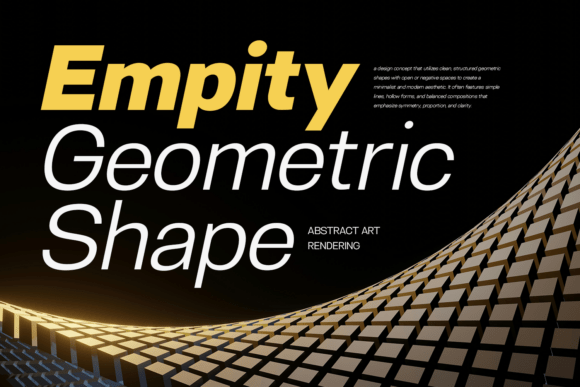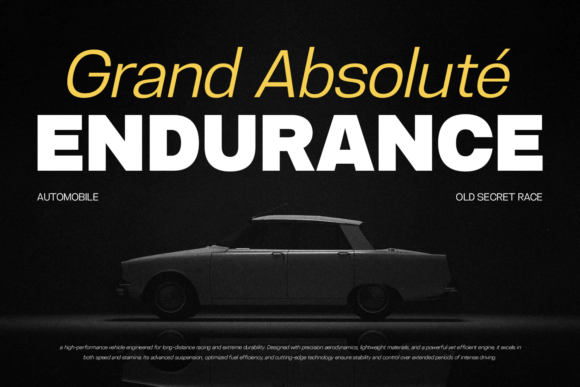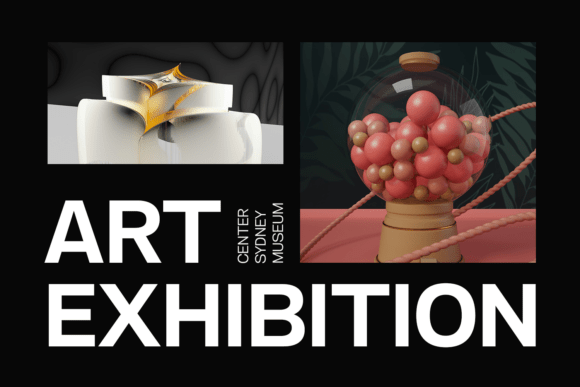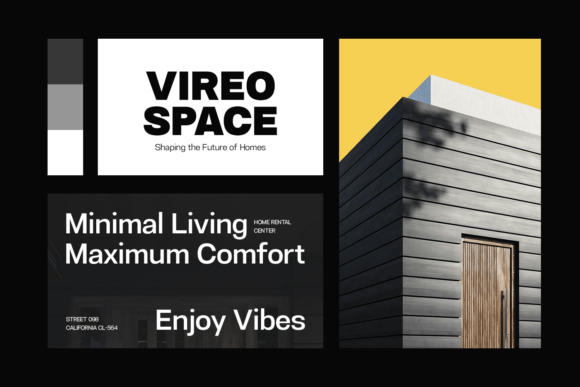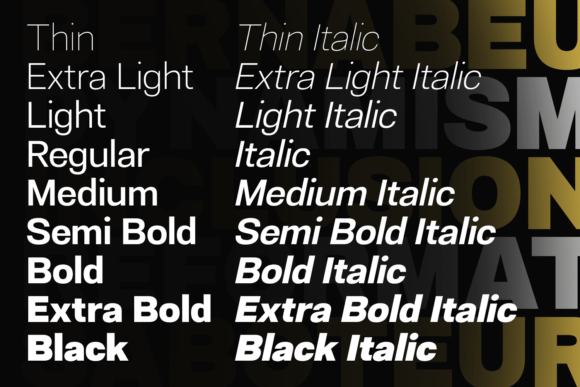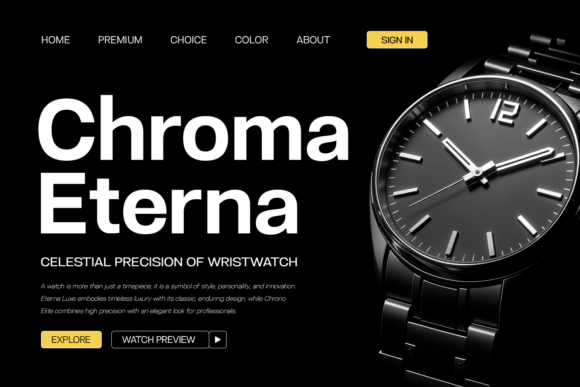
The Birth of a Statement: Bernabeu Font
Have you ever been struck by the perfect font choice that elevates your design to the next level? That’s exactly what happens when you work with the Bernabeu Font. Its bold and modern sans-serif design makes it impossible to ignore, and we’re about to dive into what makes this typeface so special.
Bernabeu Font is a carefully crafted tool for designers who want to make a statement. With its 18 styles, including 9 font weights and matching italics, you have the flexibility to create a wide range of designs that demand attention. From branding and headlines to signage and packaging, Bernabeu delivers a strong and professional presence that’s hard to ignore.
Bernabeu Font Key Features
- Font Family: Bernabeu is a sans-serif font family designed specifically for digital use, making it ideal for screens and digital media.
- Character Count: The Bernabeu font family includes over 1000 characters, including Latin, Cyrillic, and Greek alphabets, as well as a wide range of punctuation and symbol characters.
- Size: The font family is available in multiple weights, ranging from Light to Extra Bold, with font sizes ranging from 8pt to 72pt.
- Resolution: Optimized for high-resolution displays, the Bernabeu font family is ideal for use in digital media, including web, mobile, and desktop applications.
- Unique Characteristics: Bernabeu features a unique geometric design, with clean lines, open forms, and a highly legible x-height, making it an excellent choice for body text and digital signage.
Designer Review: Bernabeu Font
The Bernabeu Font has some unique characteristics that make it stand out, ✨ particularly its bold, geometric shapes. The font is highly legible and works well for headings and titles. The designer has done a great job in creating a font that is both modern and versatile.
Here are some of the things that work well about the Bernabeu Font:
- ✨ Highly legible and clear even at smaller font sizes.
- ✨ Versatile and suitable for a wide range of design projects.
- ✨ Geometric shapes add a touch of modernity to the font.
However, there are some limitations to the Bernabeu Font:
- ⚠️ The font may not be suitable for body text, as it can be a bit too bold and overwhelming.
- ⚠️ The font lacks a more subtle, thin weight option, which can make it difficult to use for detailed work.
Overall, I think the Bernabeu Font is a great addition to any designer’s toolkit. While it may have some limitations, its unique style and high legibility make it a great choice for headings, titles, and other design elements.
Tips for Getting the Most Out of Bernabeu Font
Use the Bernabeu font for titles, headings, and other emphasis.
Pair it with a sans-serif font for body text to create a clear contrast.
Experiment with different font sizes and colors to create visual hierarchy.
Use the Bernabeu font for:
Logo designs
Branding materials
Headlines and titles
Marketing
Alternatives to Bernabeu Font
Montserrat is a modern sans-serif font designed by Julieta Ulanovsky. It is perfect for use in digital design, signage, and editorial content. Montserrat is similar to Bernabeu Font in its clean and geometric style, but it has a more angular and edgy feel.
Inter is a modern sans-serif font designed by Rasmus Andersson. It is a versatile font suitable for use in digital design, print, and branding. Inter is similar to Bernabeu Font in its clean and minimalist style, but it has a more rounded and approachable feel.
Merriweather is a classic serif font designed by Eben Sorkin. It is perfect for use in print design, book publishing, and academic content. Merriweather is different from Bernabeu Font in its traditional and elegant style, but it shares a similar level of sophistication and refinement.